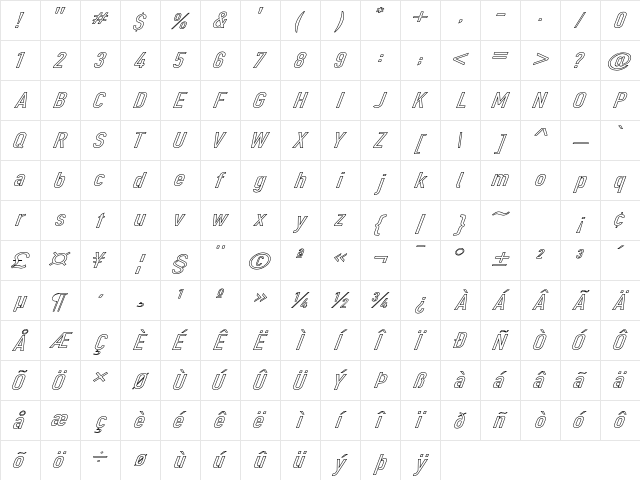
Din Kursivschrift BreitGhost
Design Context for Din Kursivschrift Typeface
Din Kursivschrift takes a measured approach to typography — its balanced proportions and neutral character make it a reliable workhorse for both digital and print work. Its italic angle brings a sense of urgency and motion to the letterforms.
Pro Tip: Try Din Kursivschrift for annotation and caption copy alongside an upright companion — the contrast in angle creates a dynamic but ordered typographic system.